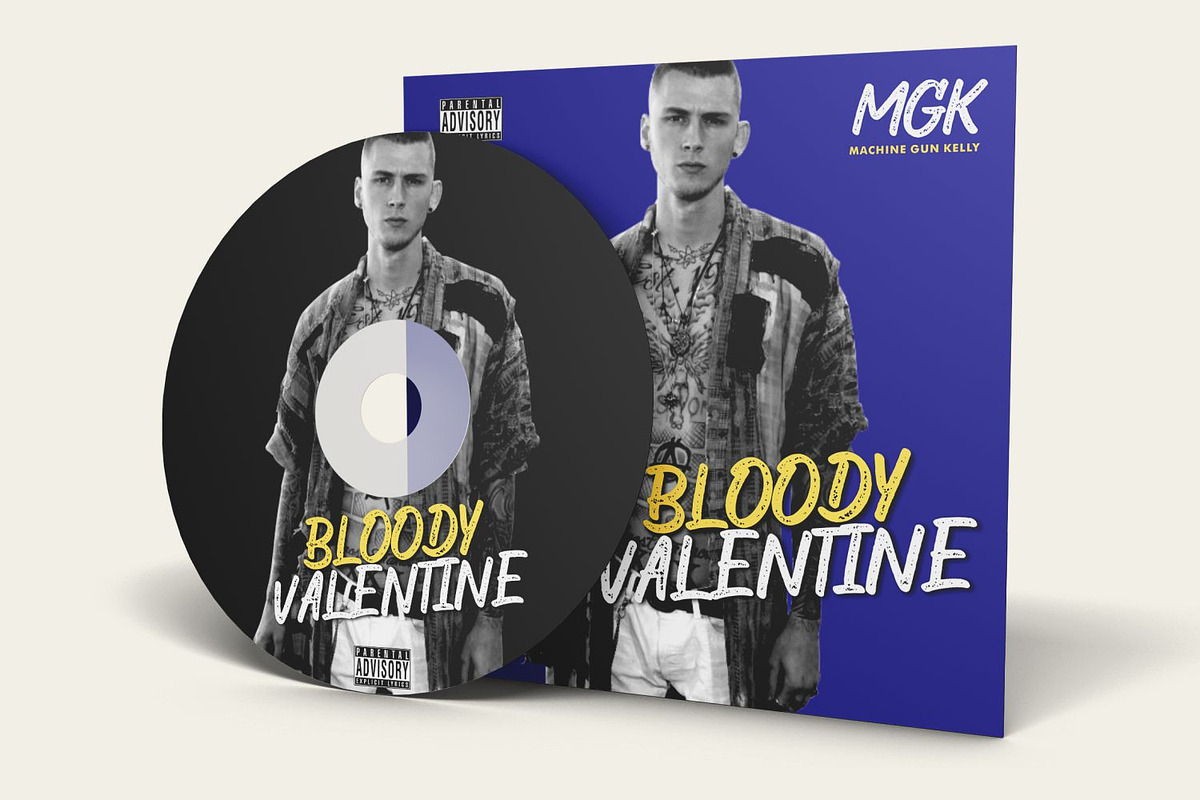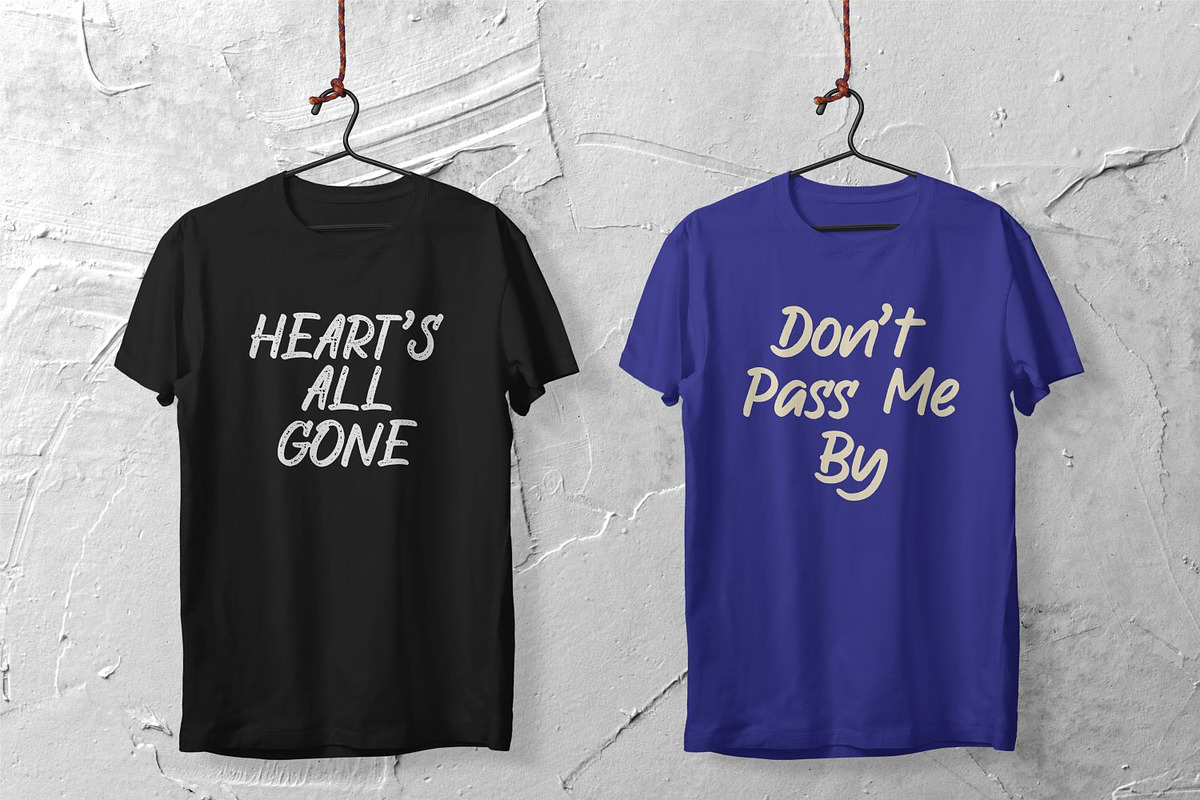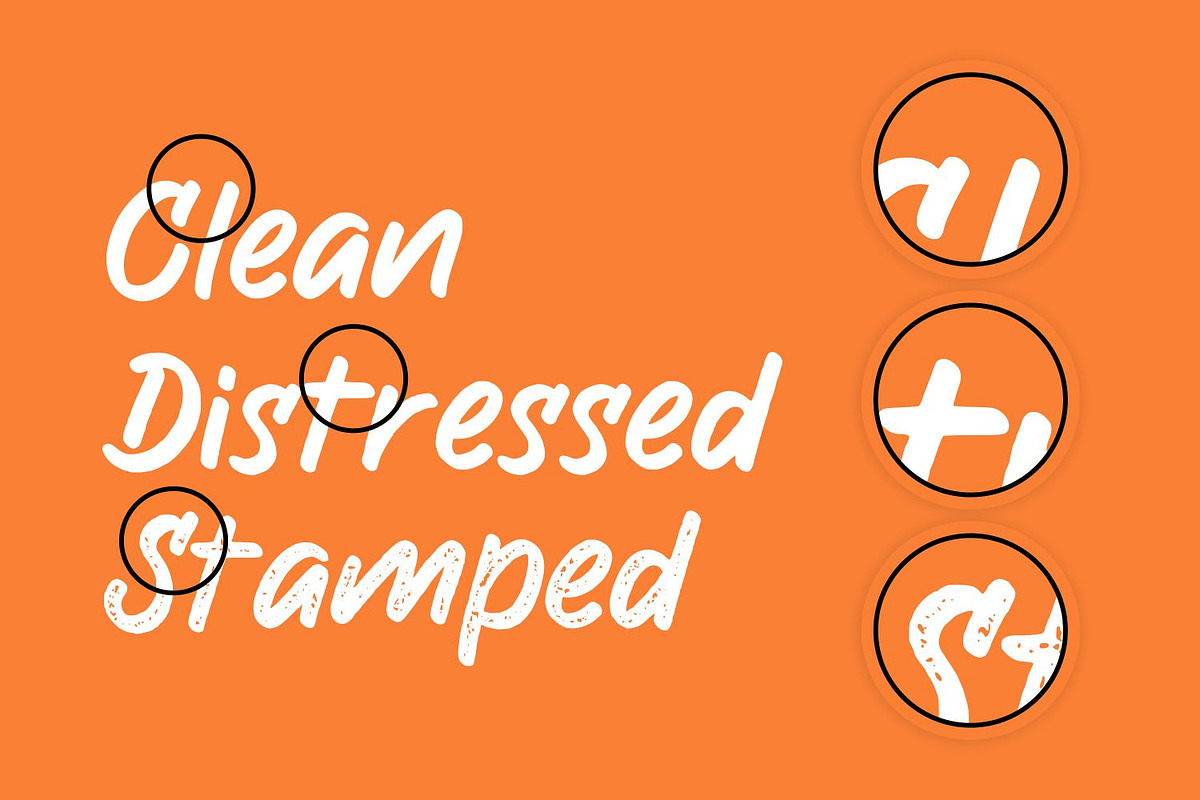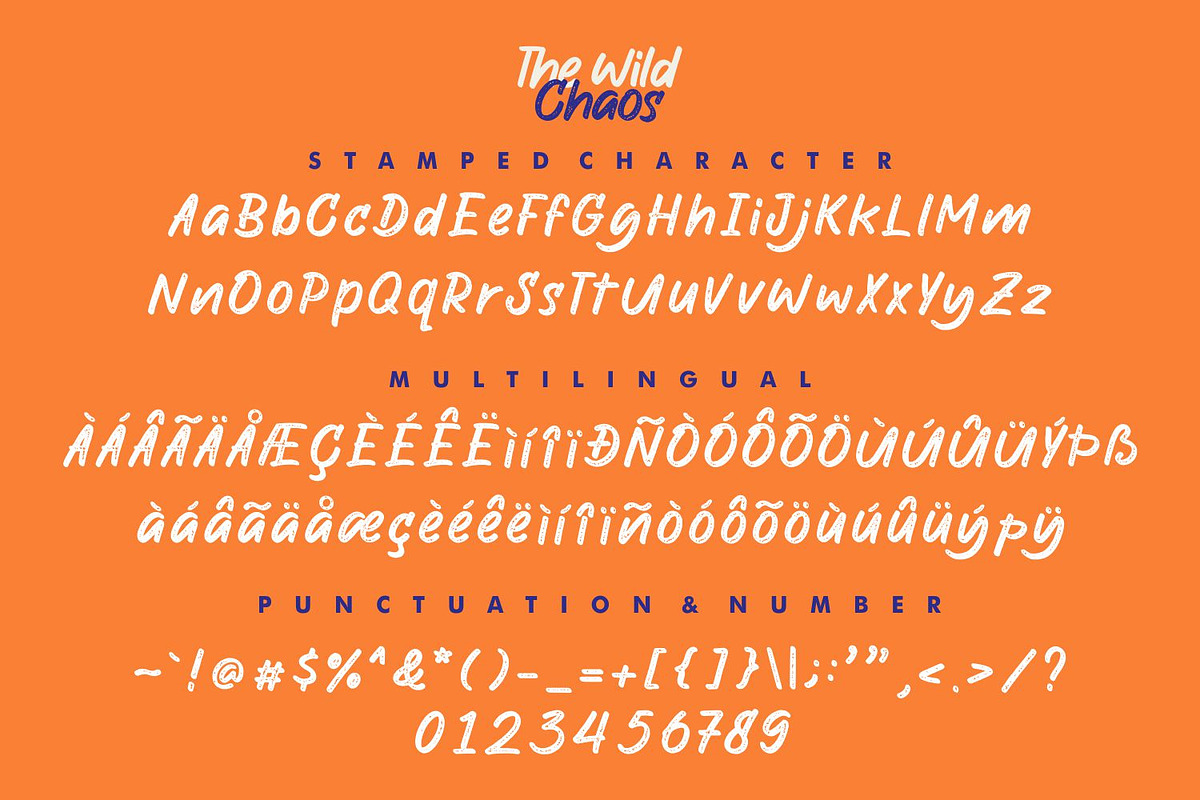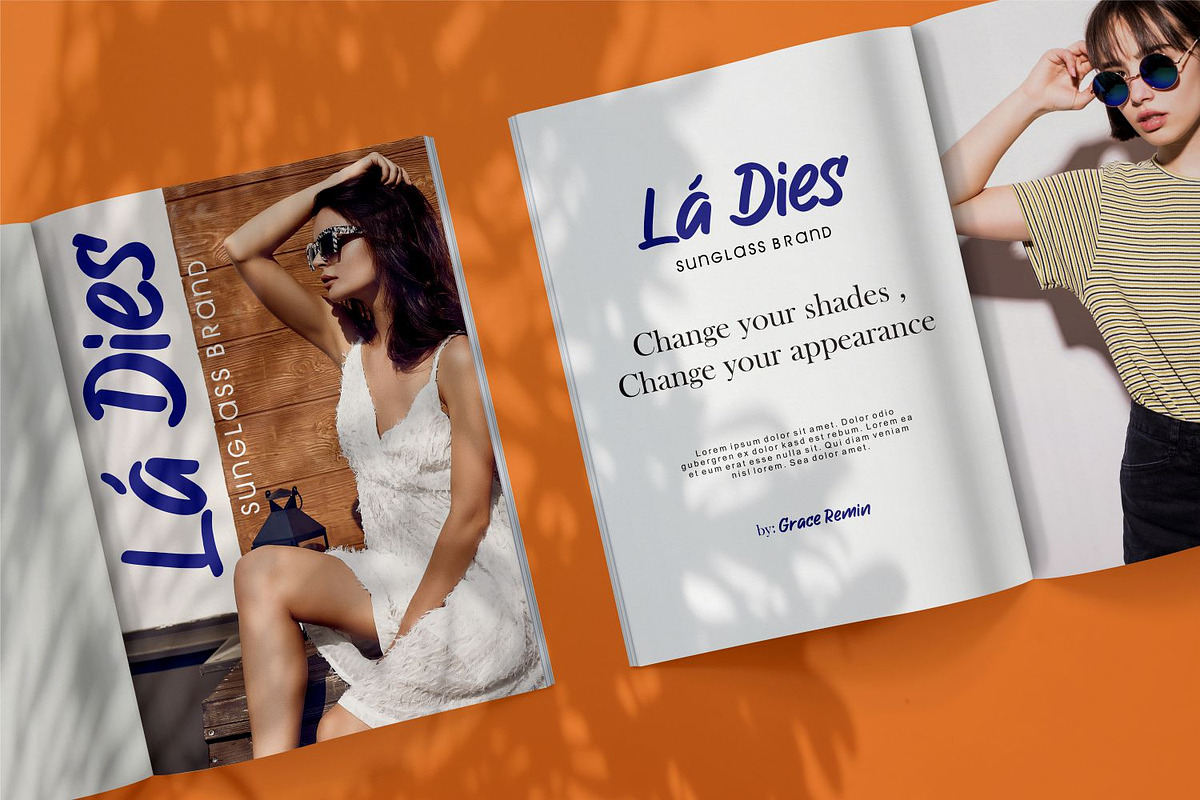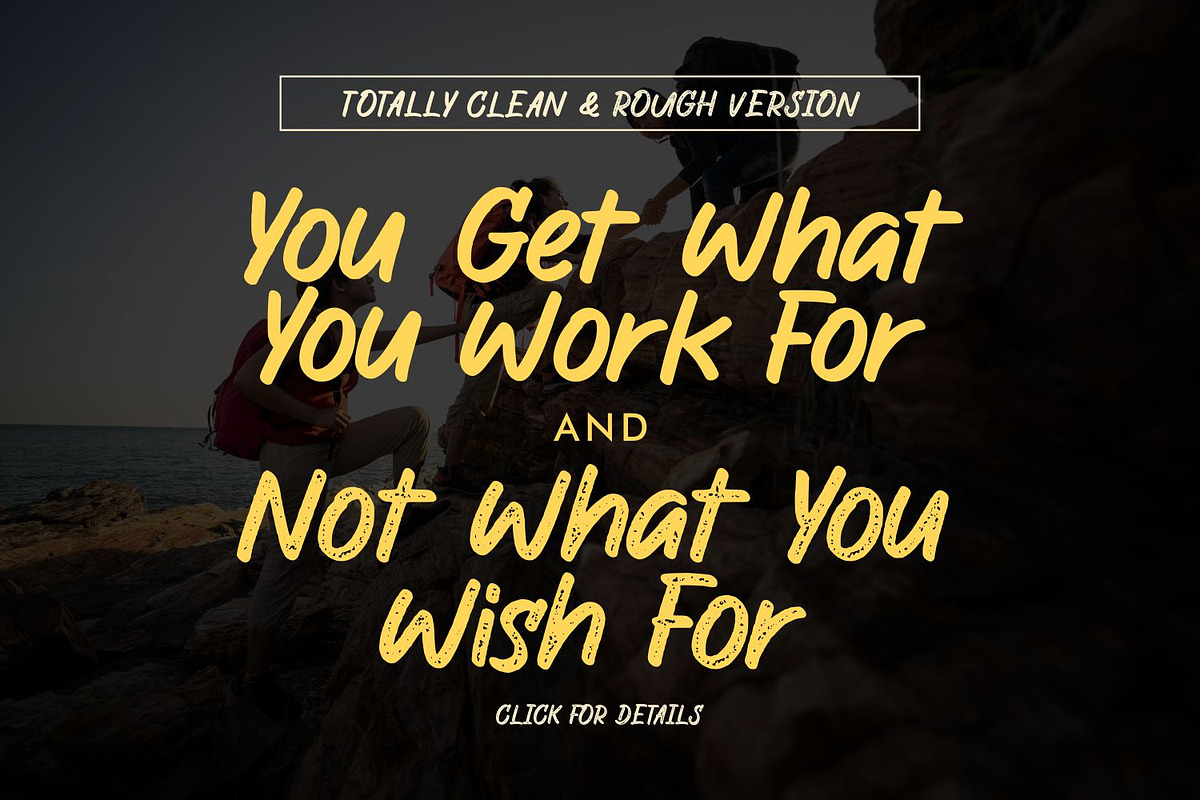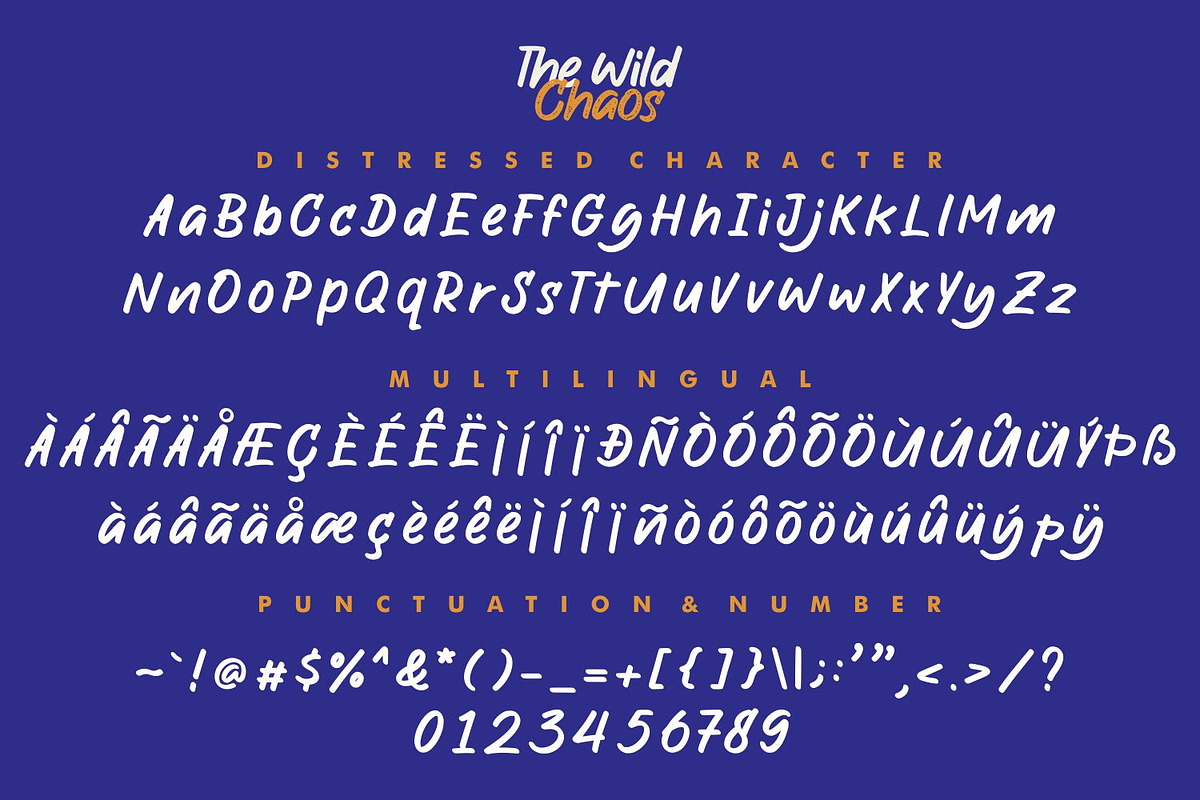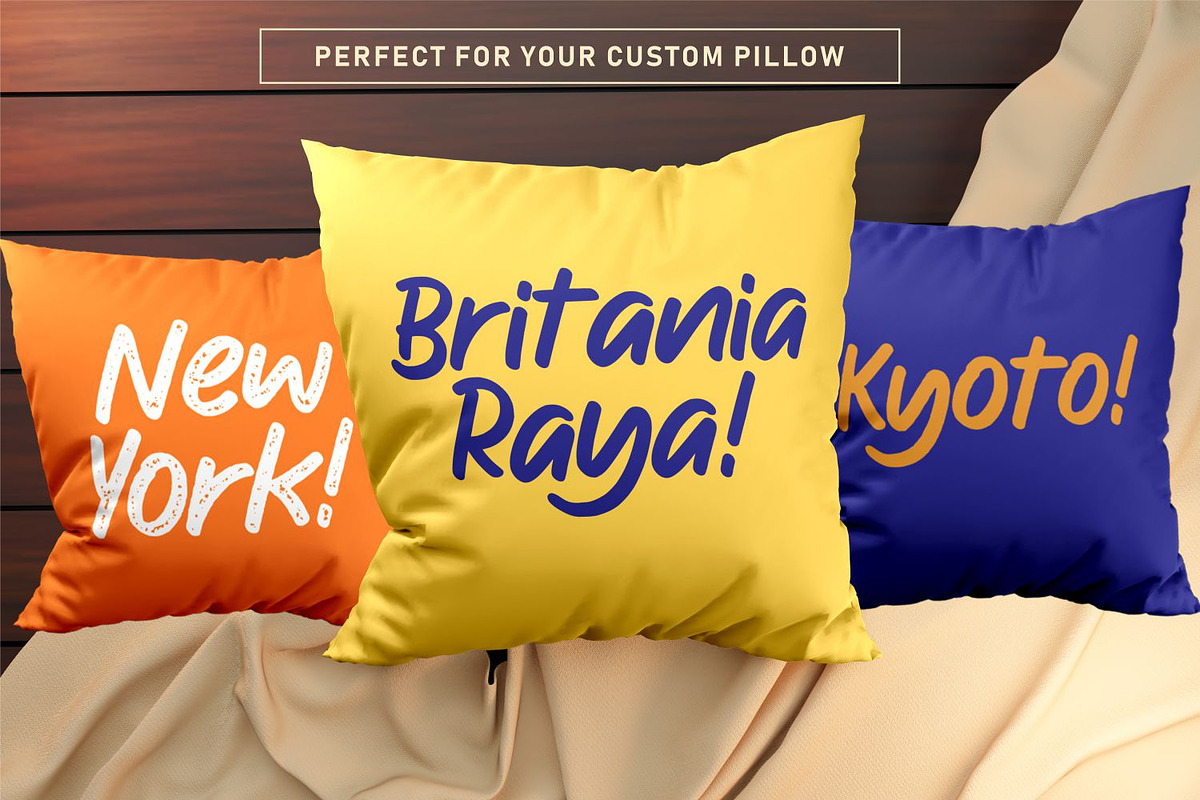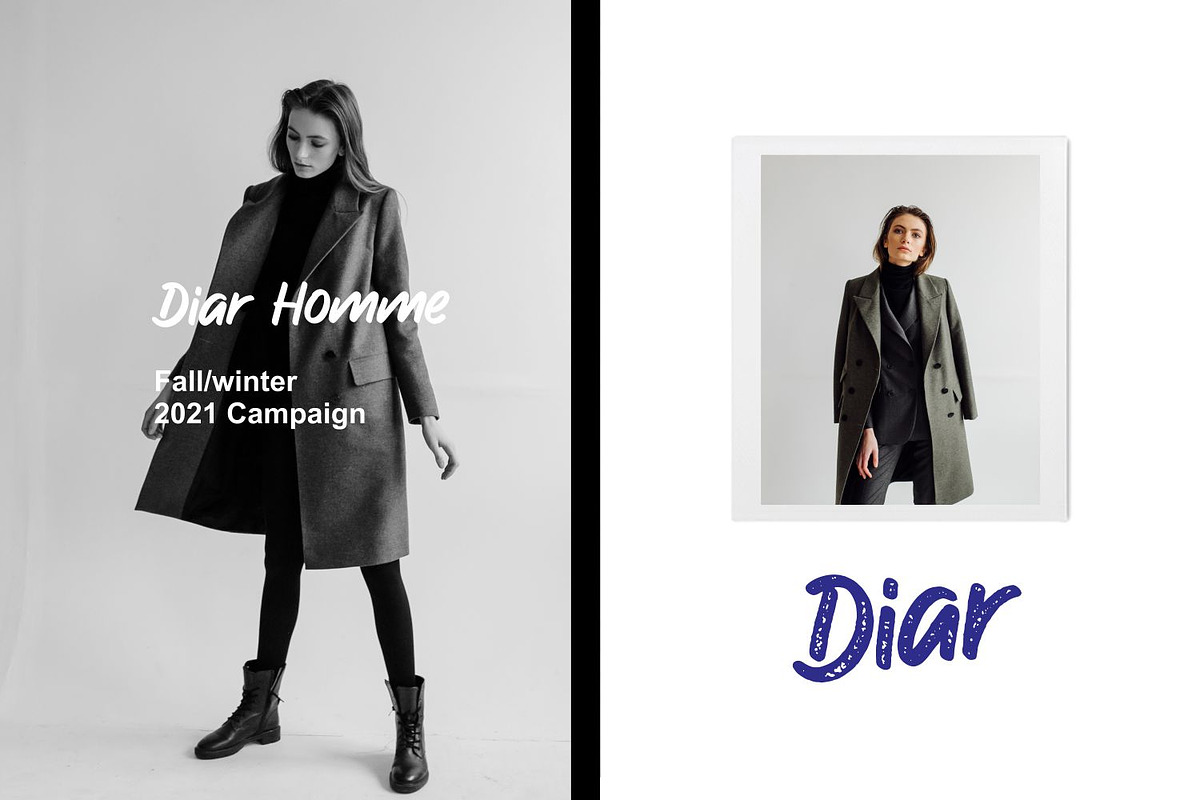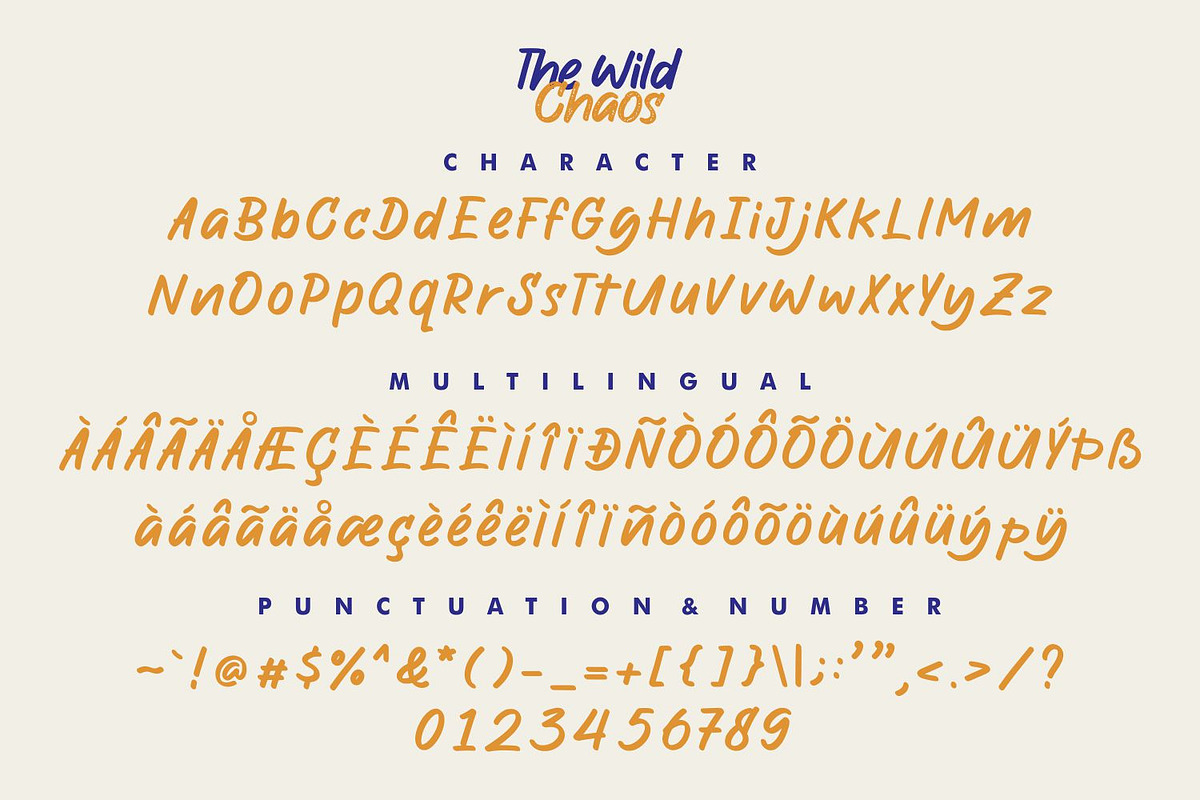
The Wild Chaos Font
Proudly Present, The Wild Chaos (three styles).
The Wild Chaos is a Handwritten Display Font Family.
The Wild Chaos is perfect for product packaging, branding project, megazine, social media, wedding, or just used to express words above the background.